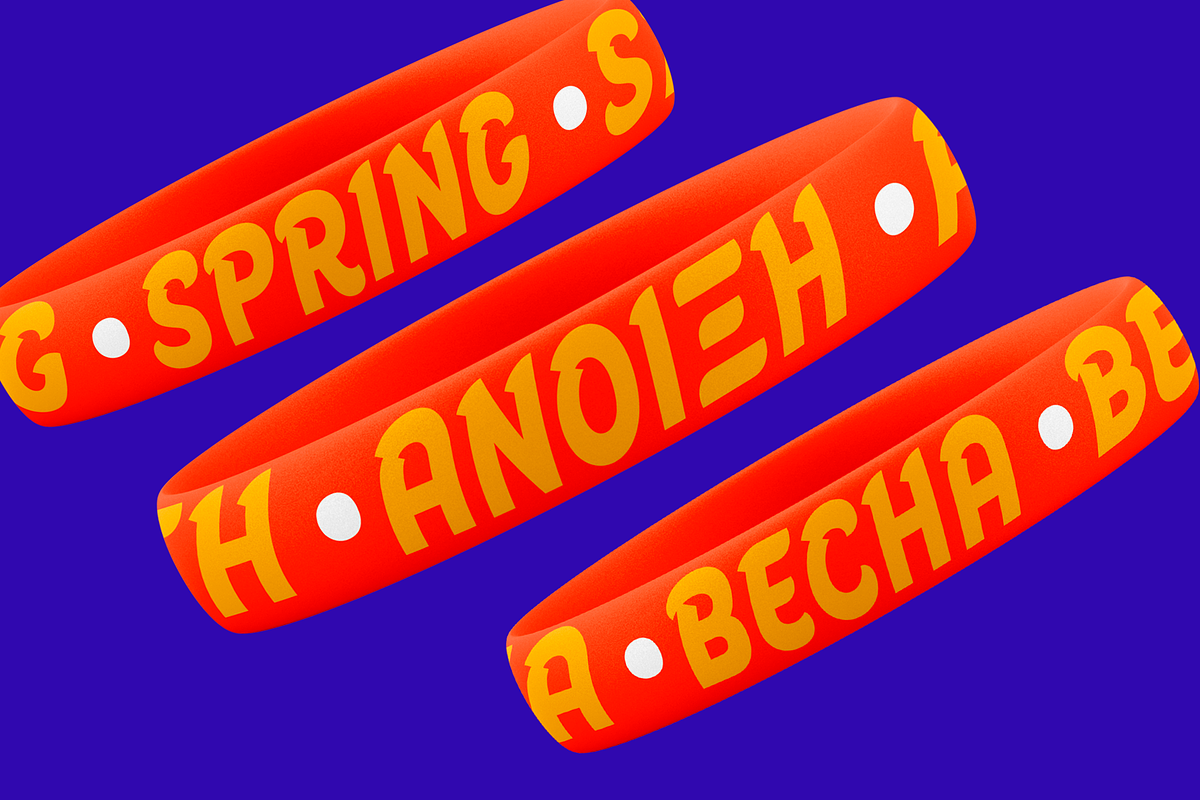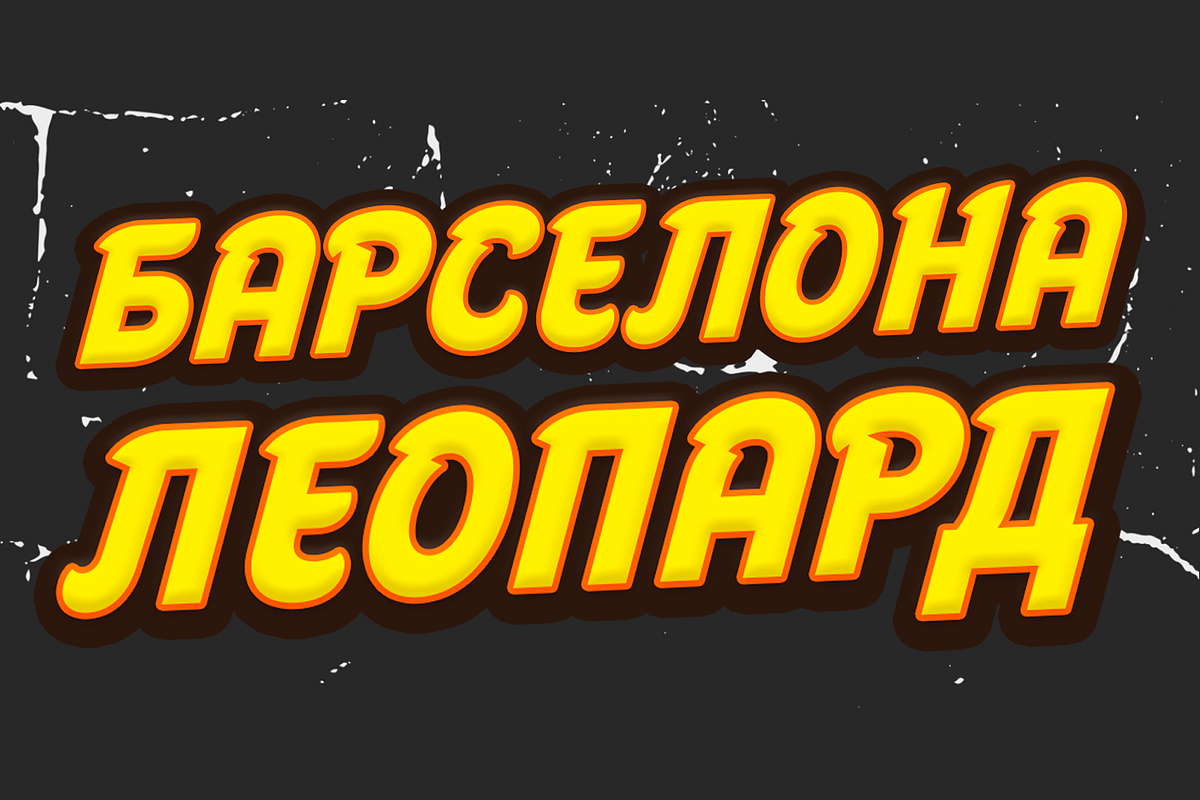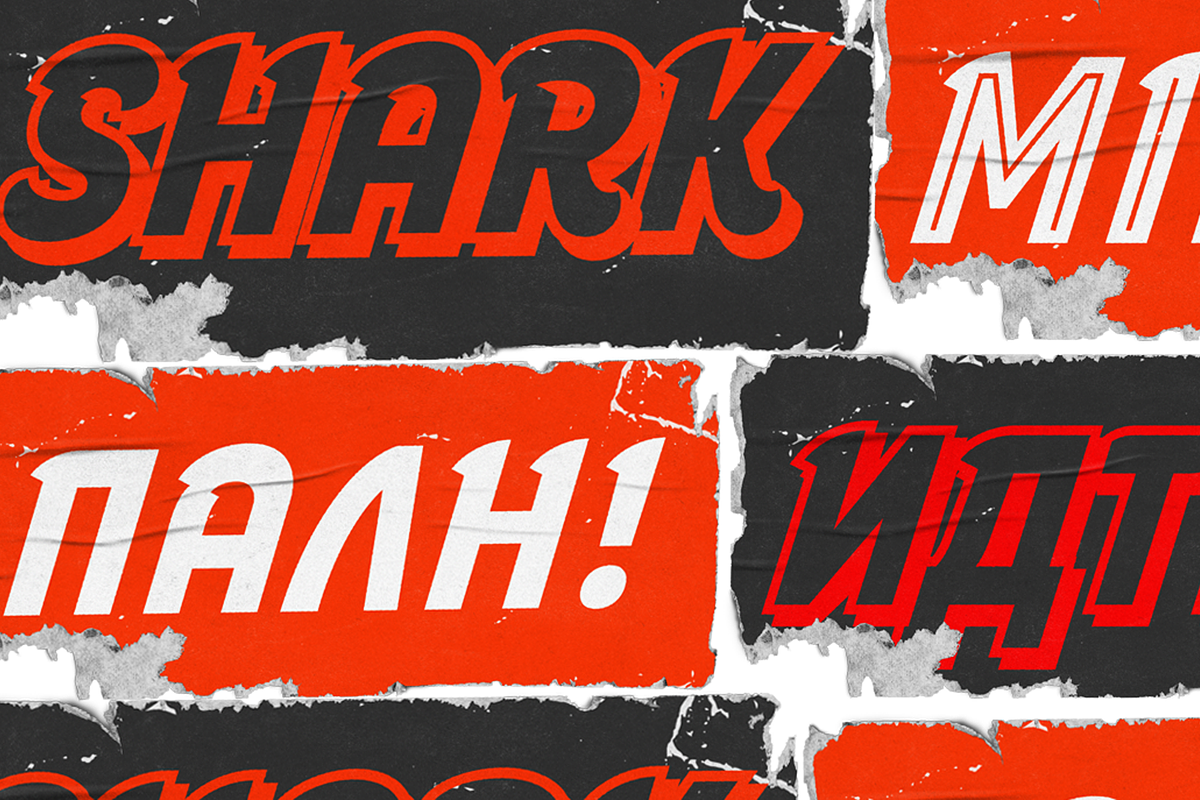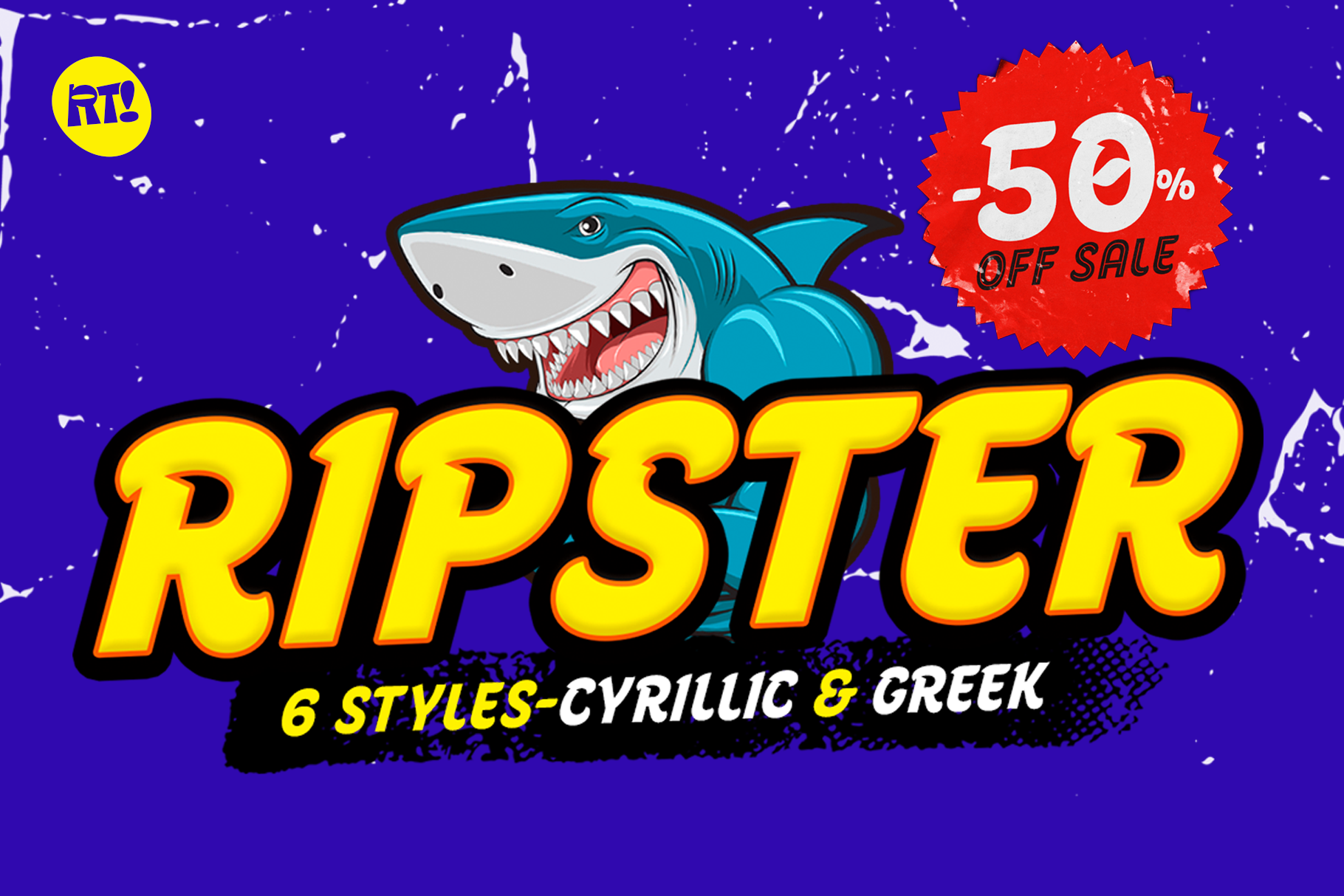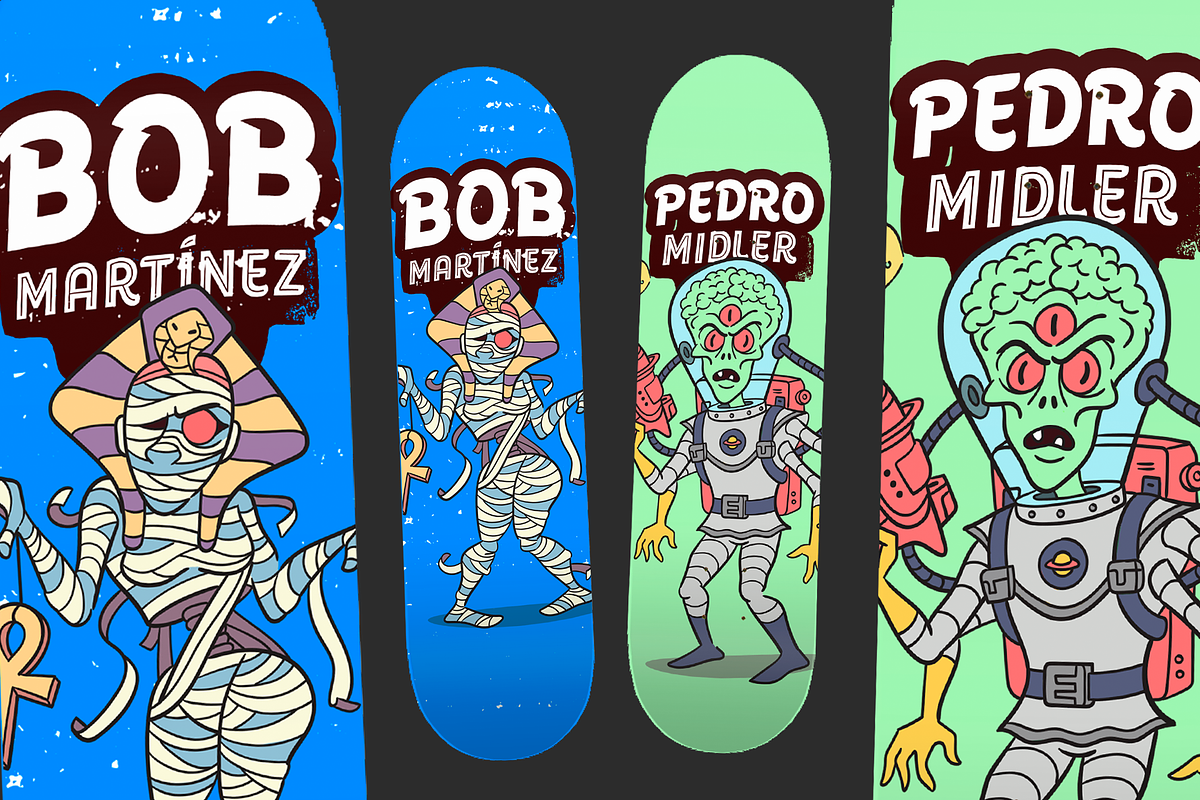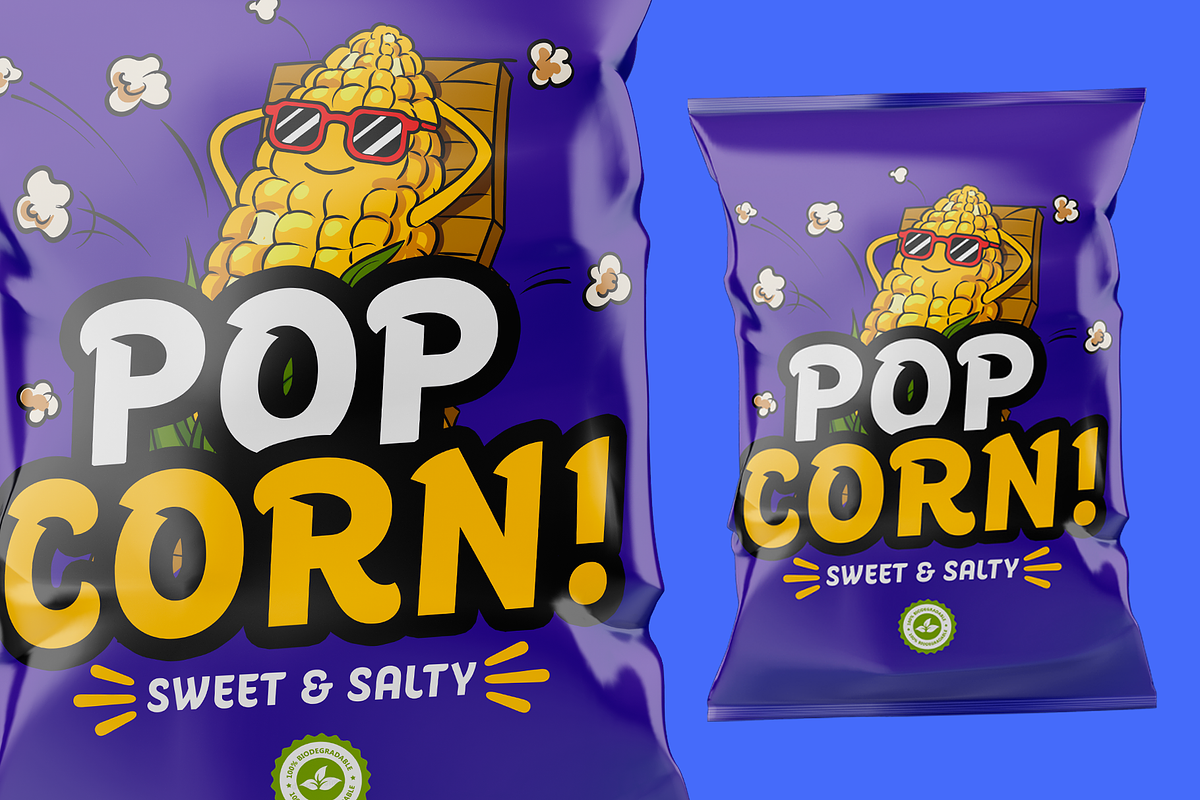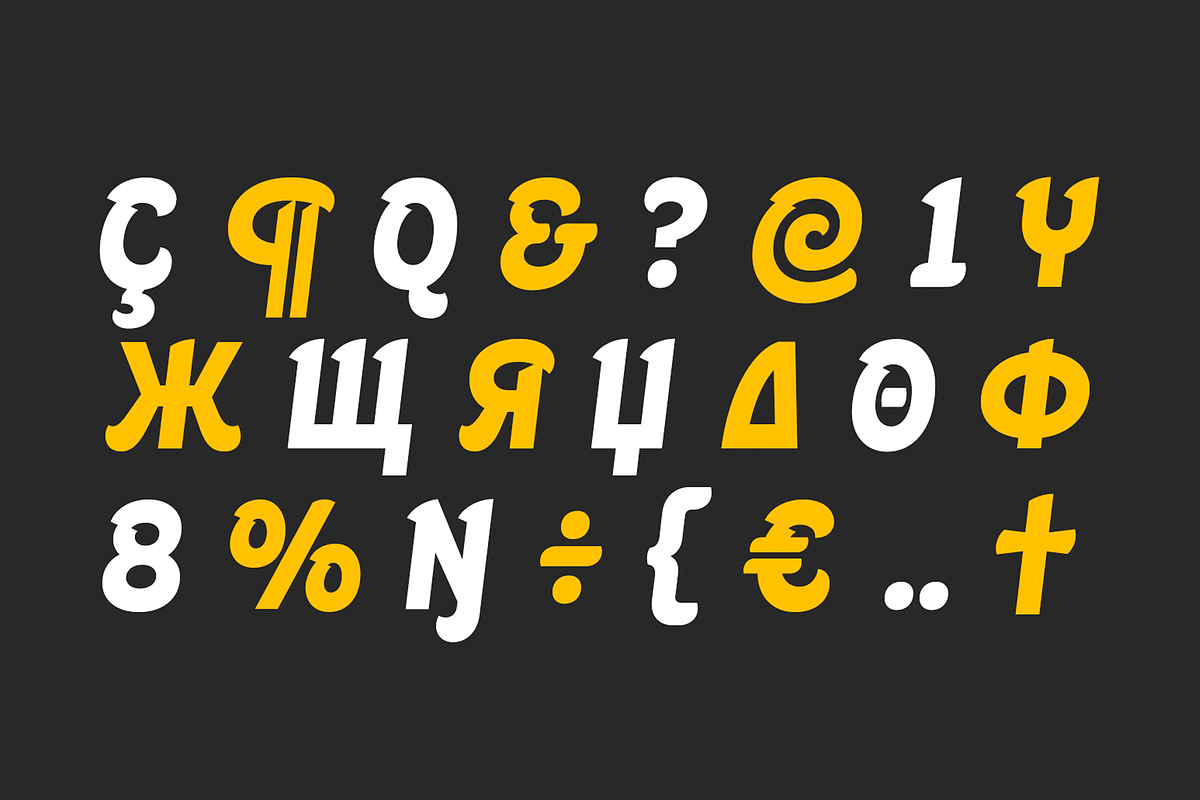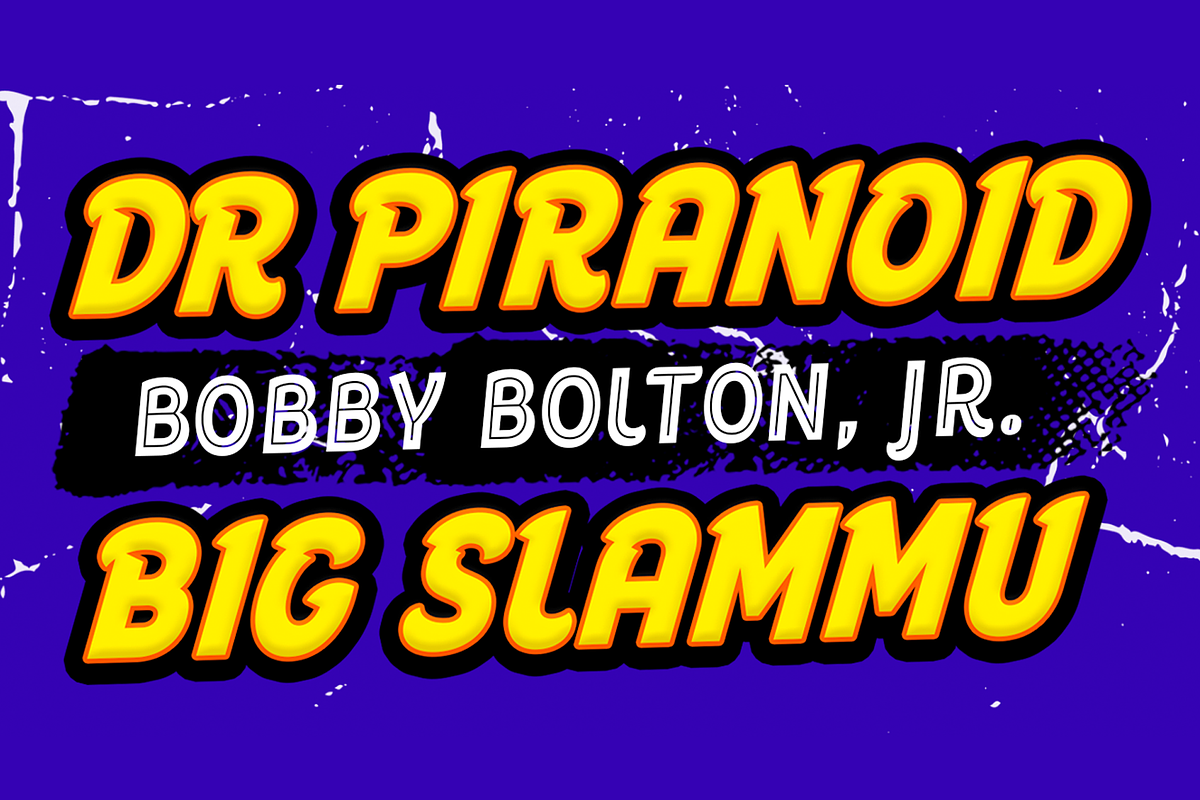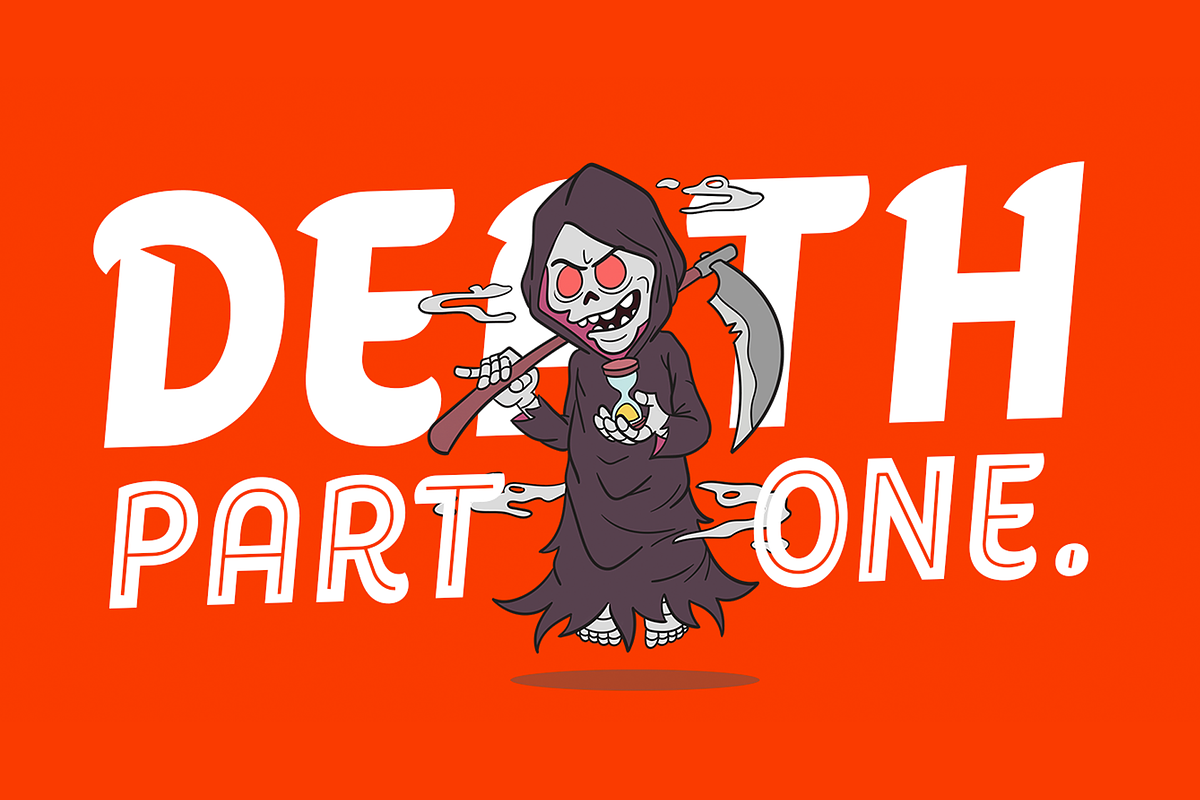
Ripster -50% Greek+Cyrillic 6 FONTS!
Ripster Year: 2021 Author: Rodrigo Araya Designers: Rodrigo Araya - Andrey K.- Bruno Jara Concept: Ripster, is a typeface family of 6 variants (Regular, Inline, Shadow, Soft, Soft Inline, Soft Shadow.) especially for titles, with very dynamic and strange shapes, it also contains Cyrillic alphabet such as Greek,